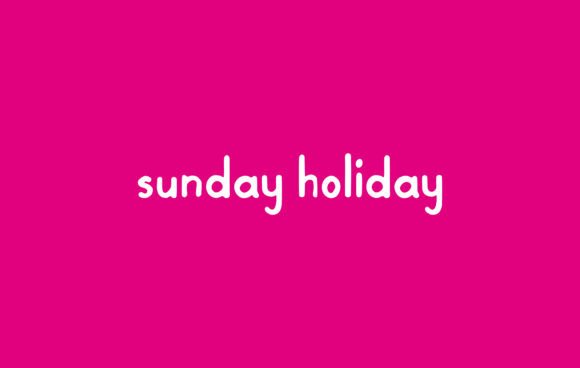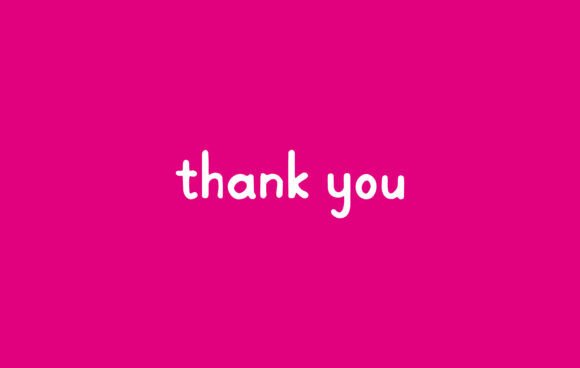
Have you ever been stuck on a project, staring at a blank page or screen, desperate for that perfect font to give your design the extra oomph it needs? It’s a feeling we’ve all been there, but what if we told you that we’ve found the solution to your creative conundrum? Introducing the enchanting Faither Font, a beautifully crafted handwritten font that’s sure to capture the hearts of your audience.
Expertly designed to be a true favorite among designers, the Faither Font is perfect for adding a touch of romance and whimsy to your projects. Whether you’re working on a magazine headline, social media post, or wedding invitation, this font is sure to elevate your design to new heights. With its legibility and versatility, the Faither Font is a valuable addition to any designer’s toolkit.
Faither Font Key Features
- Font Family: Faither Font is a sans-serif font family designed for modern and minimalist designs. It comes in multiple weights, from Light to Bold.
- Character Set: Supports a wide range of languages, including Latin, Cyrillic, and Greek alphabets, with over 1,000 glyphs in each weight.
- Unique Characteristics: Faither Font features a distinctive geometric shape with clean lines, rounded edges, and a subtle flair at the terminals, giving it a friendly and approachable feel.
Designer Review: Faither Font
Overall, I’d say the Faither Font is an interesting and unique addition to any design project. Here are some things that work well:
- ✨ The font’s playful and handwritten feel makes it perfect for projects that require a touch of personality.
- ✨ The font’s versatility allows it to be used in a variety of contexts, from branding and advertising to digital and print materials.
- ✨ The font’s customization options are extensive, allowing designers to fine-tune the font to fit their specific needs.
However, there are some limitations to keep in mind:
- ⚠️ The font’s uniqueness can sometimes make it difficult to read, especially at smaller font sizes.
- ⚠️ The font’s customization options can be overwhelming, making it difficult for designers who are new to the font to get started.
- ⚠️ The font’s compatibility with certain operating systems and software can be inconsistent.
Overall, I think the Faither Font is a solid choice for designers who are looking to add a touch of personality to their projects. While it may have some limitations, its unique feel and extensive customization options make it a valuable addition to any design toolkit.
The Faither Font is a versatile font that can be used in a variety of contexts, including:
- Children’s books and educational materials
- Advertising and marketing materials
For optimal use, pair the Faither Font with a clean and simple design, and use